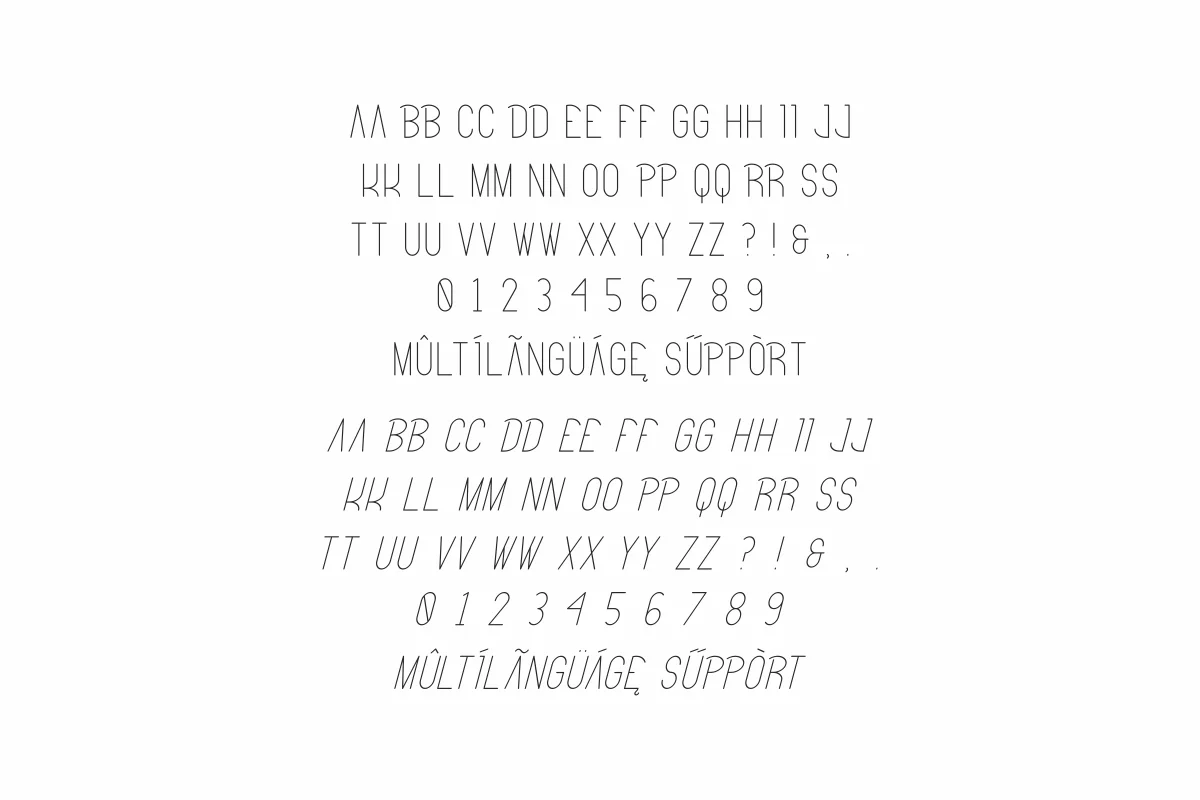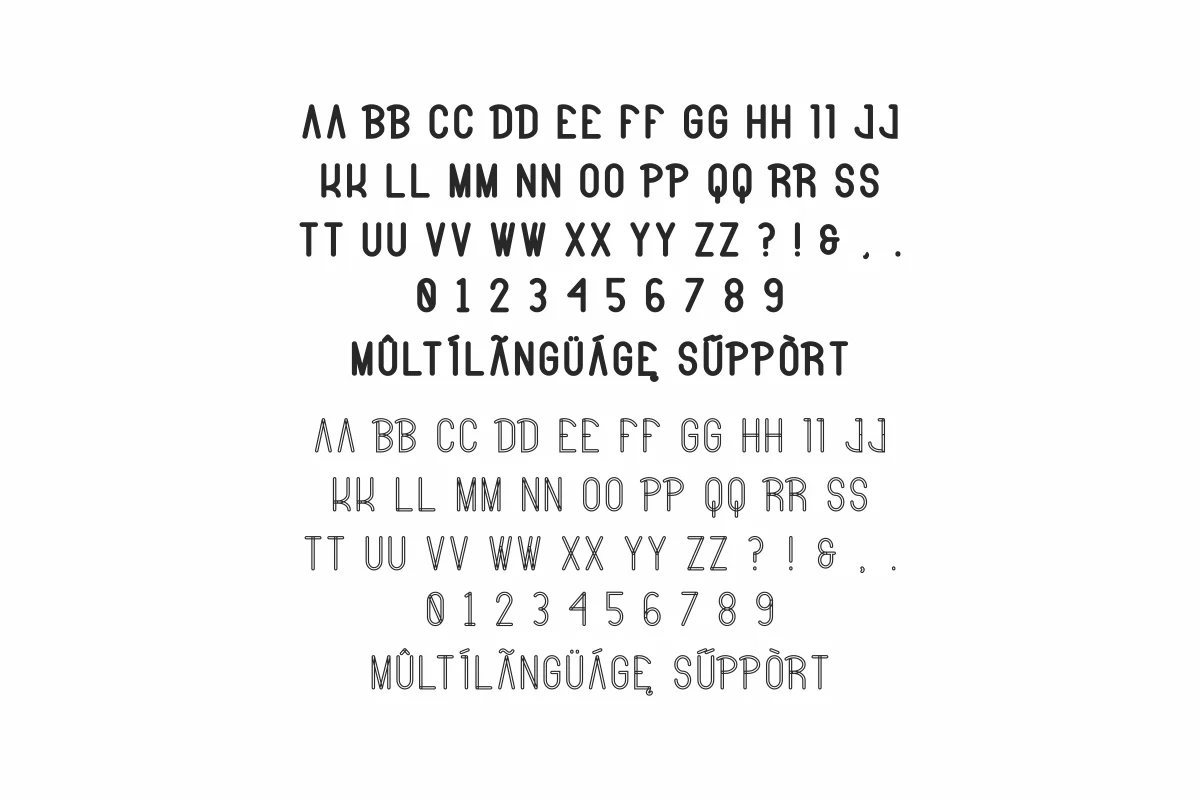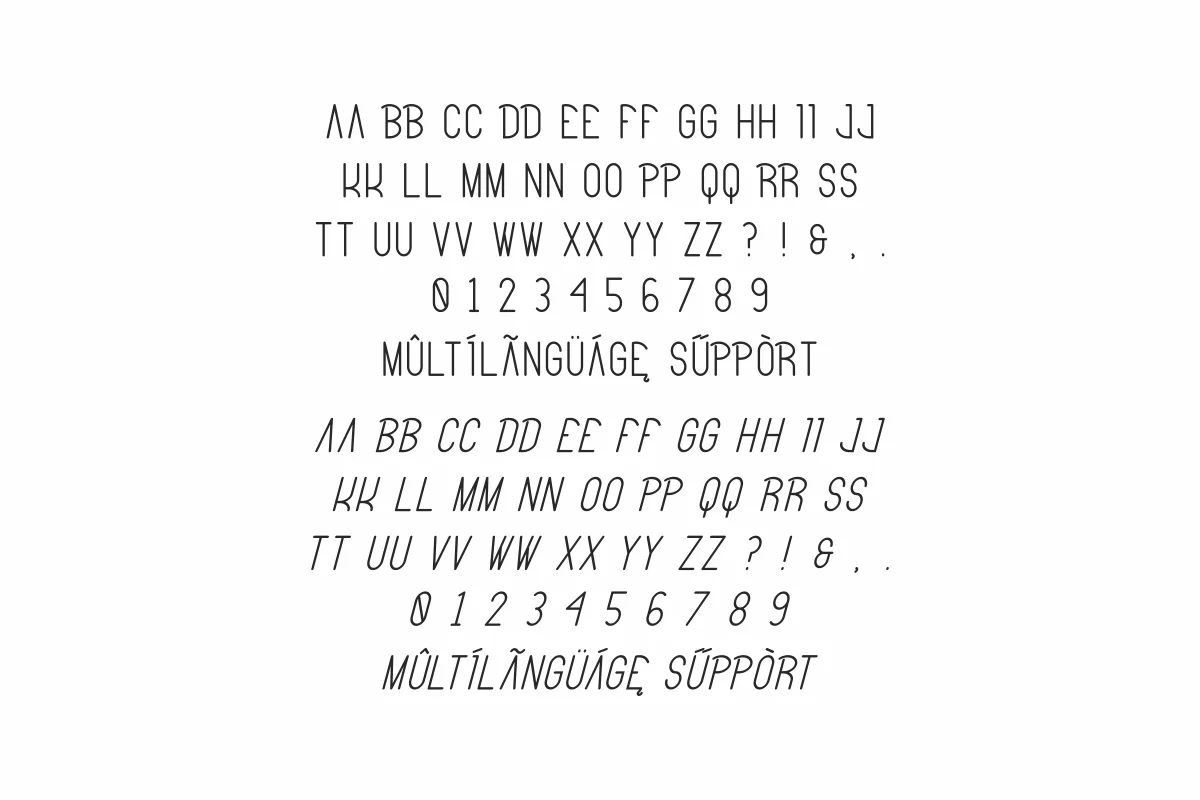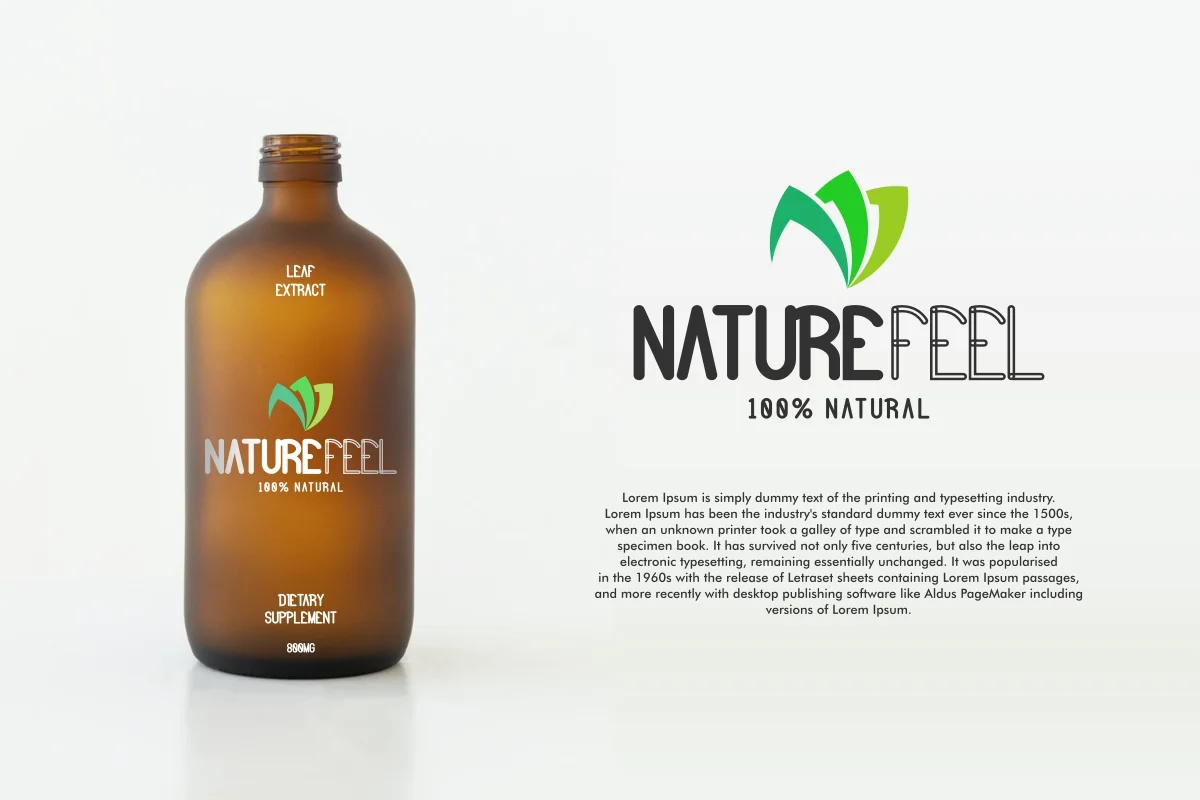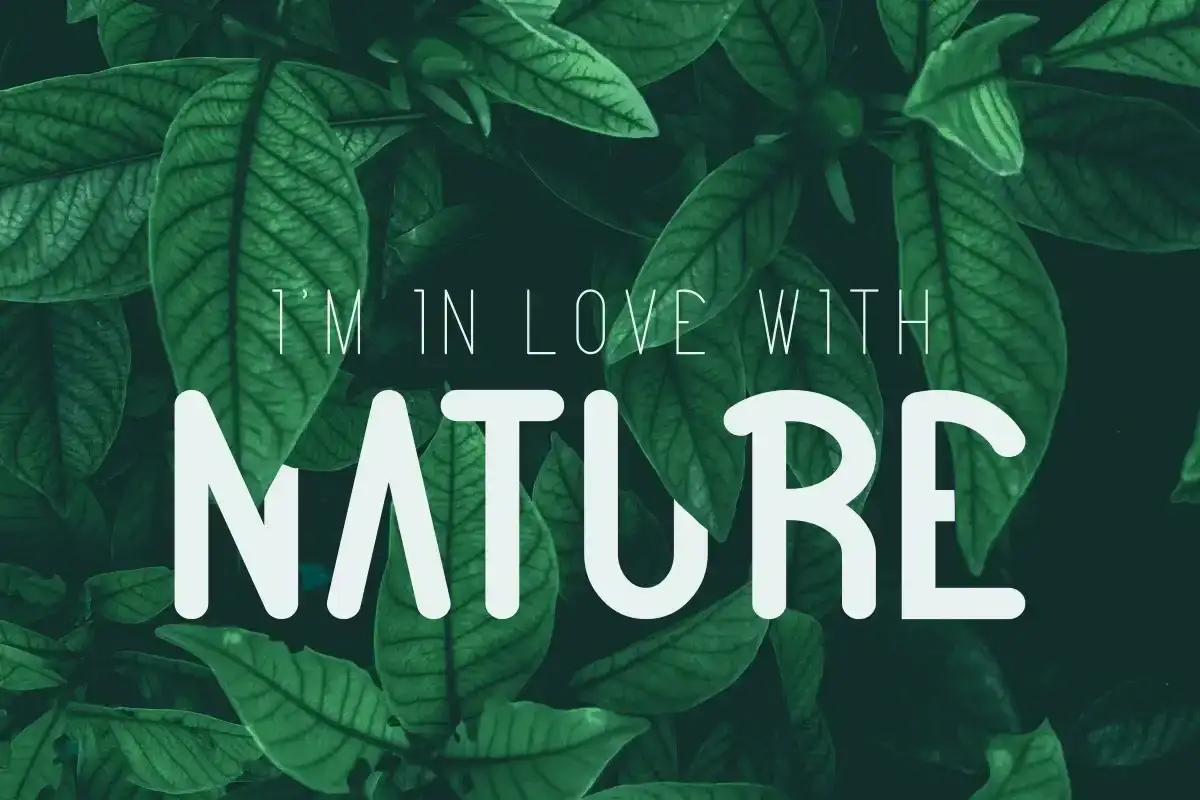
Bitter Space Font is a font family with six different styles. Originally made by NihStudio Font Designers : Nouval and Sarah. On the package you will get :
The Bitter Space Font has 6 styles : Regular, line, light, light italic, italic and Bold